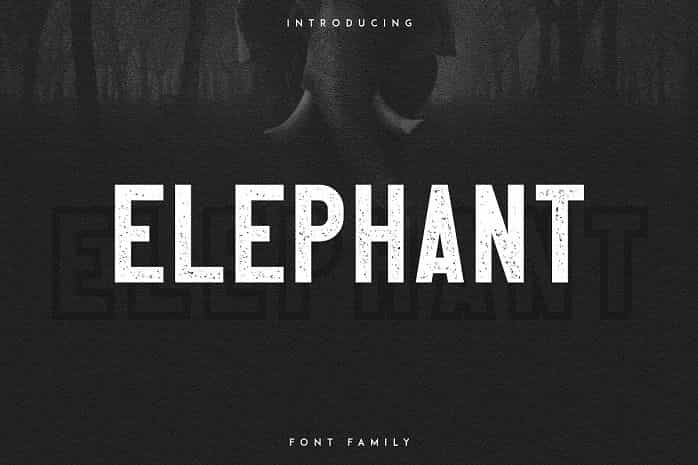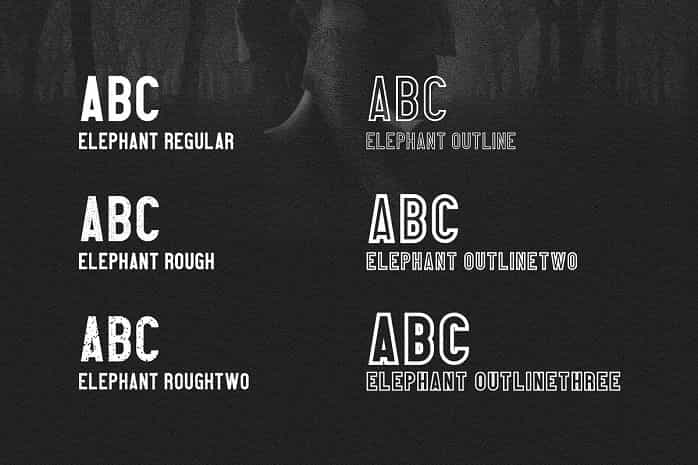
Elephant font family includes 6 fonts and multilingual support. It is perfect for branding projects, home-ware designs, product packaging, magazine headers – or simply as a stylish text overlay to any background image.